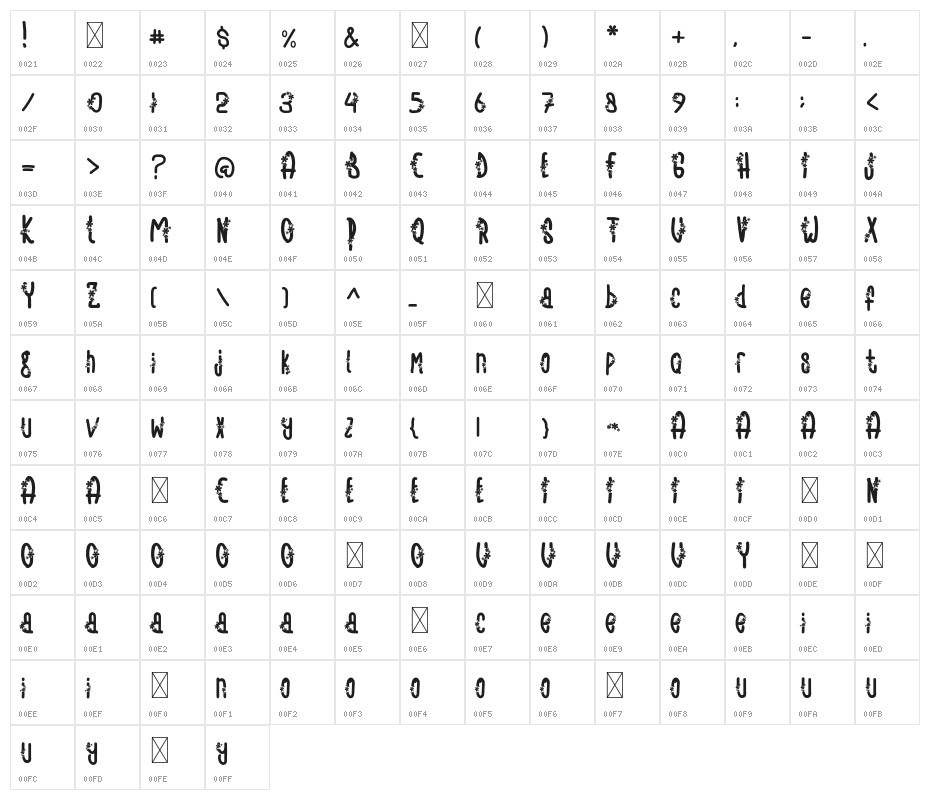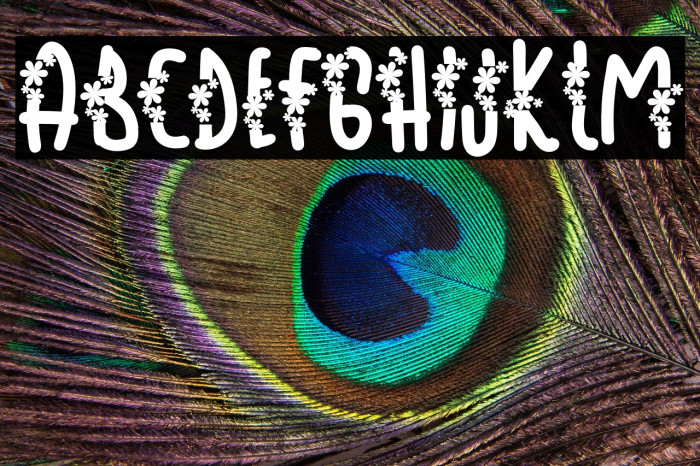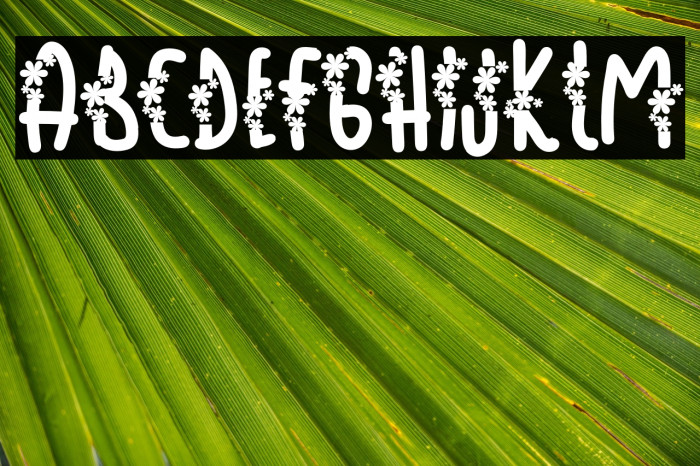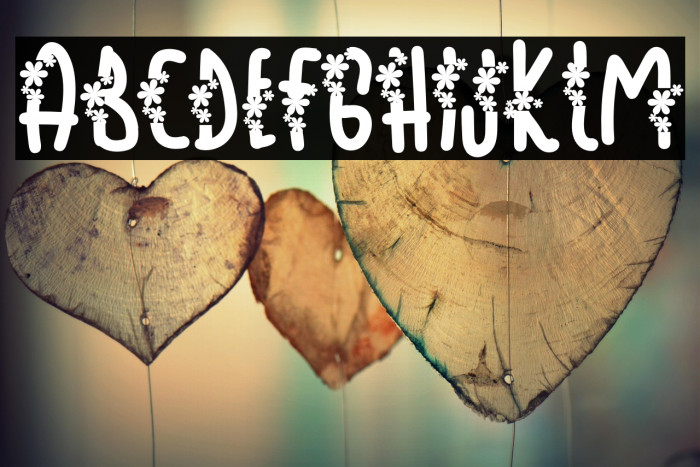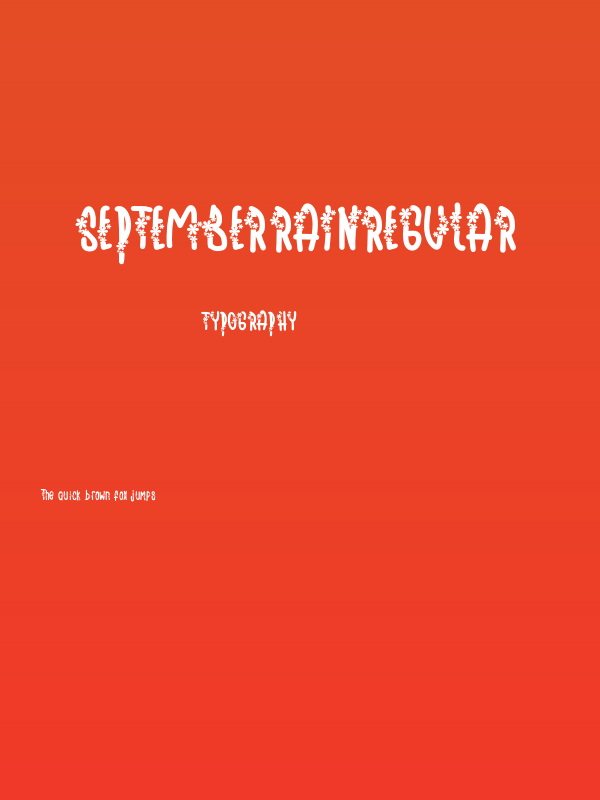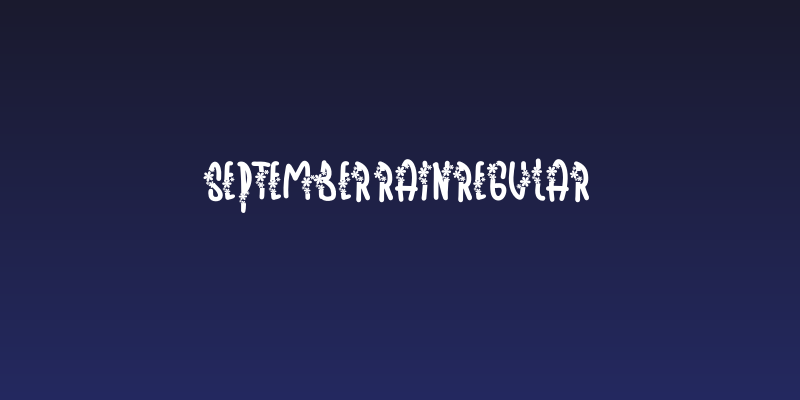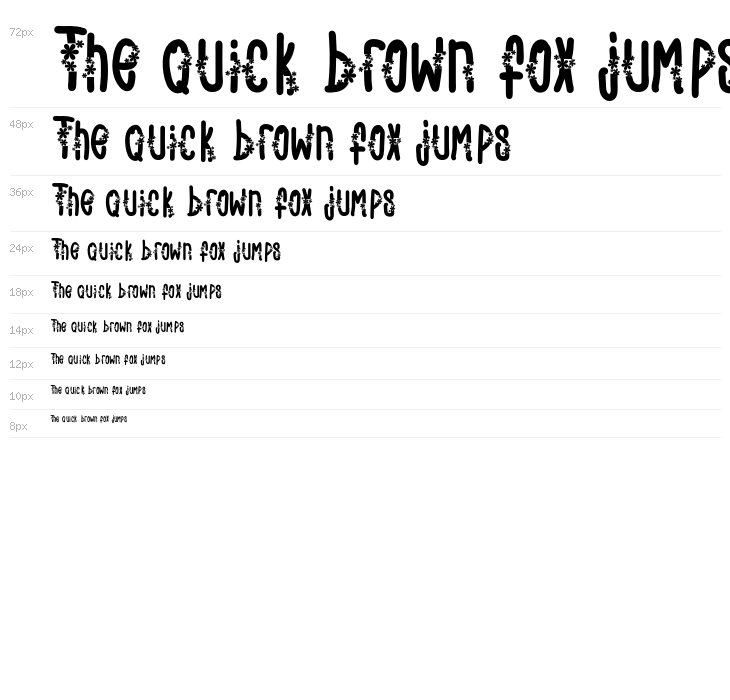
SeptemberRainRegular Font
SeptemberRainRegular Description
This font features a playful and decorative style, characterized by whimsical floral embellishments integrated into each letter and number. The bold strokes and unique design elements make it stand out, creating a lively and engaging visual experience. The uppercase and lowercase letters maintain a consistent style, with the floral motifs adding a touch of elegance and creativity. The numbers and special characters follow the same decorative theme, ensuring a cohesive look across all elements. This font is ideal for projects that require a fun and artistic touch, such as invitations, posters, and creative branding.
| Use Case | Headlines, Logos, Artistic projects |
| Proposed Projects | Ideal for invitations, posters, creative branding, and artistic projects. |